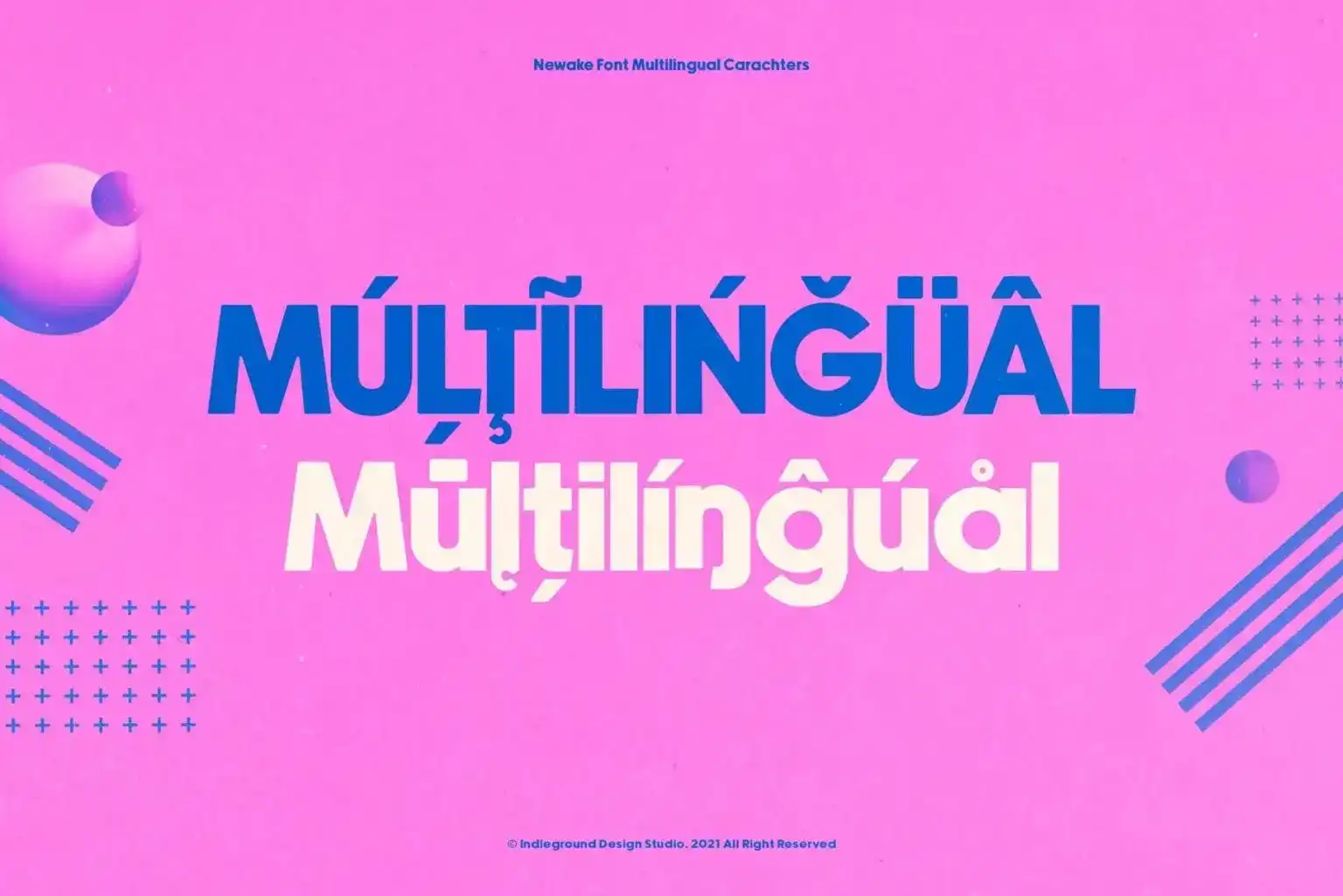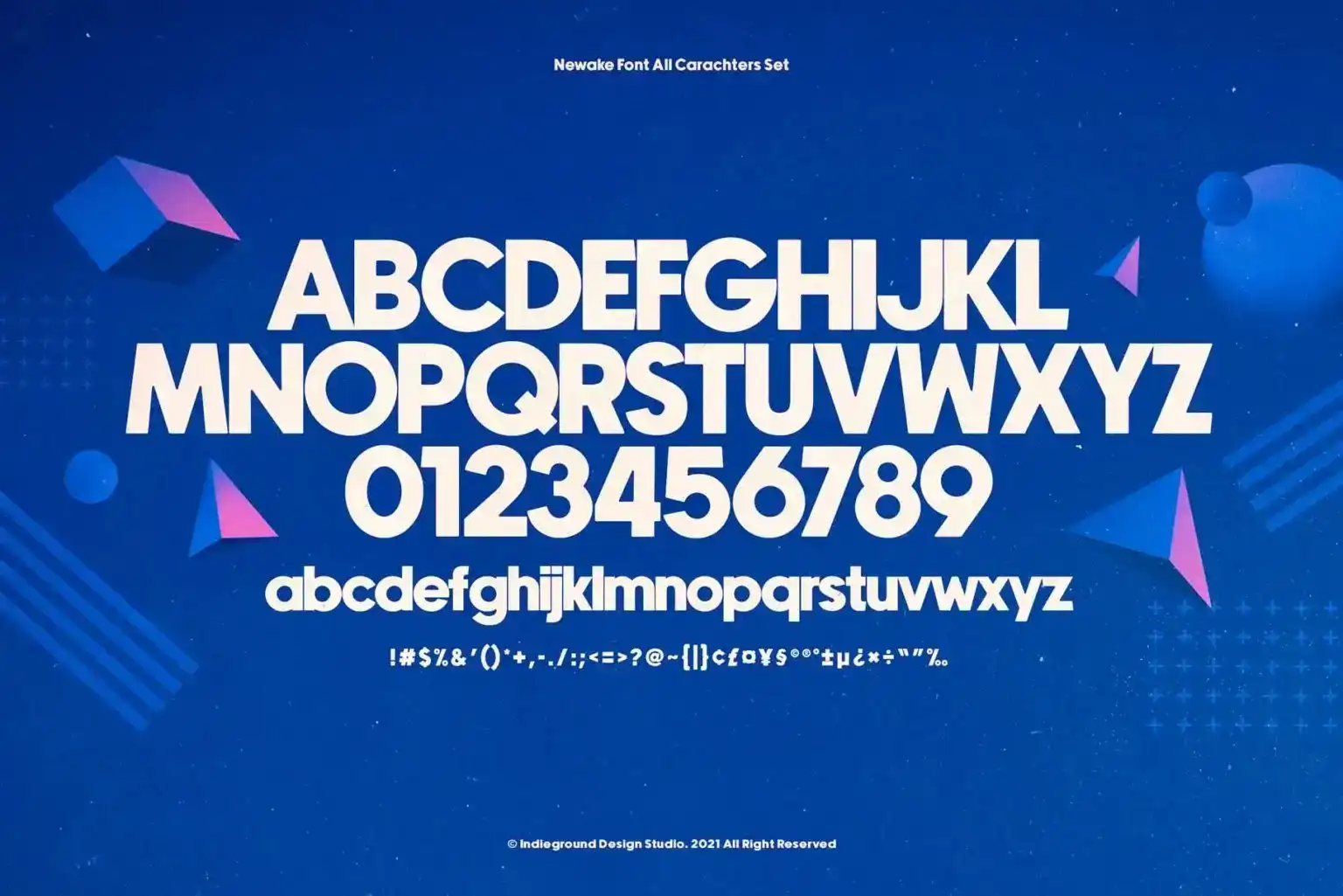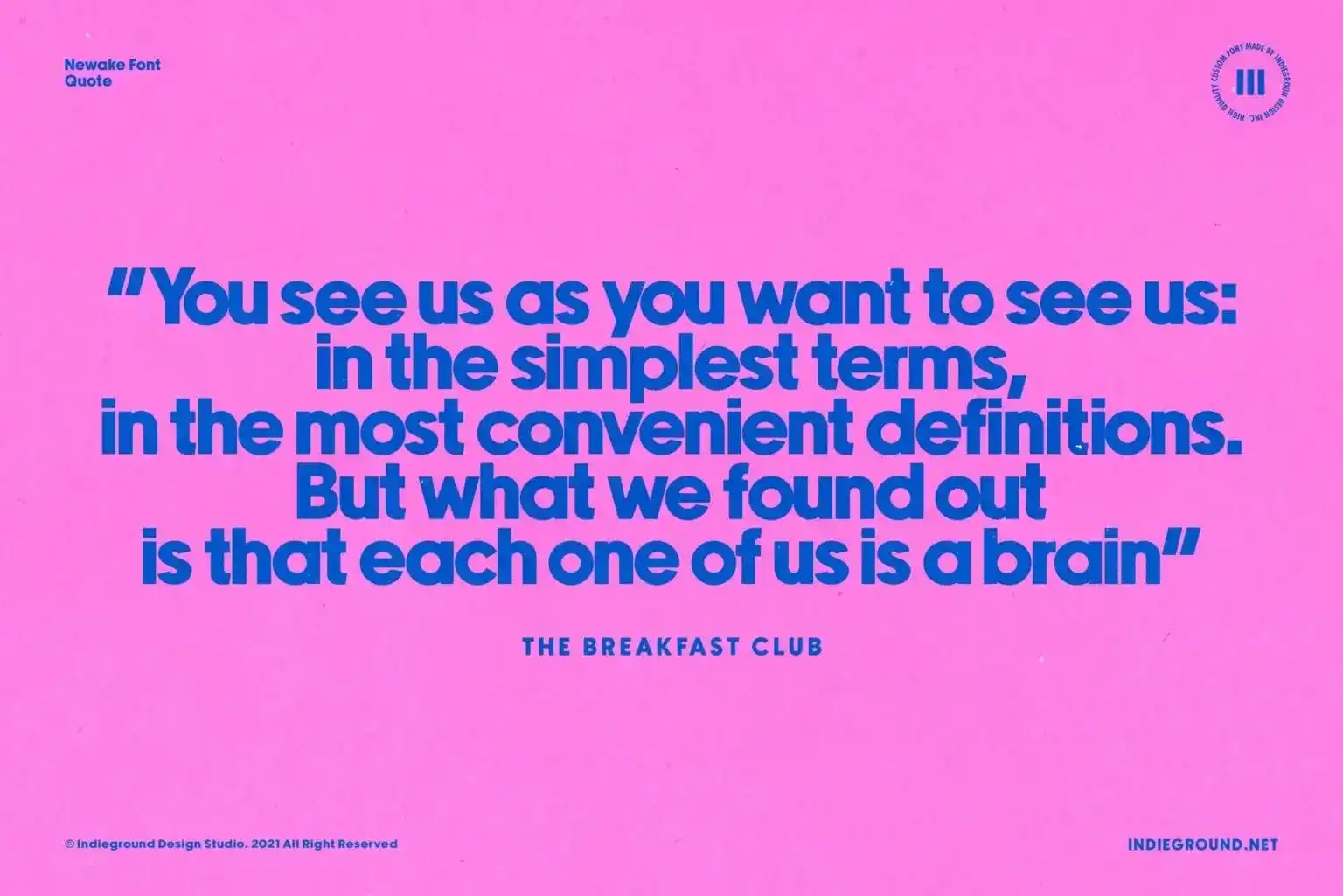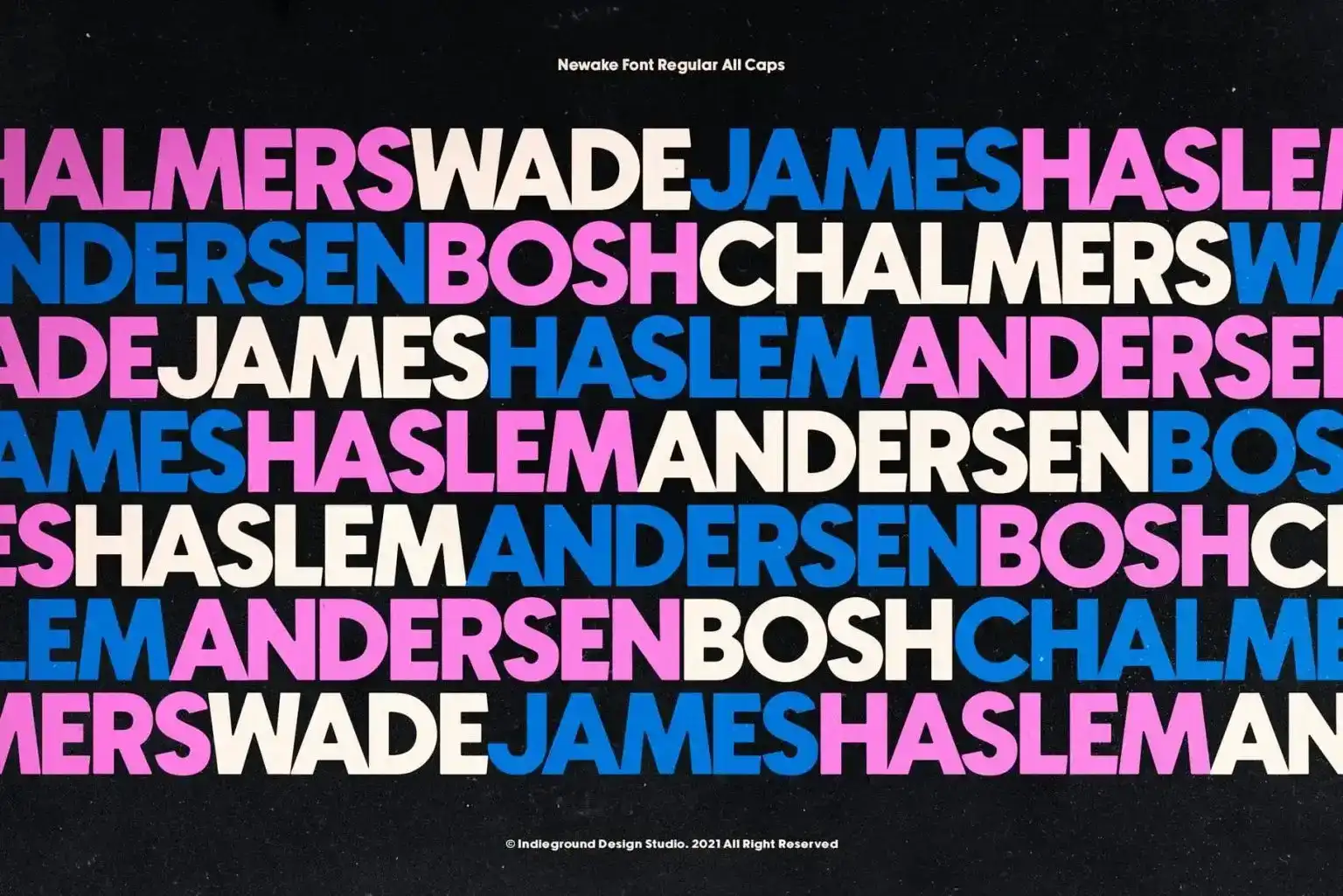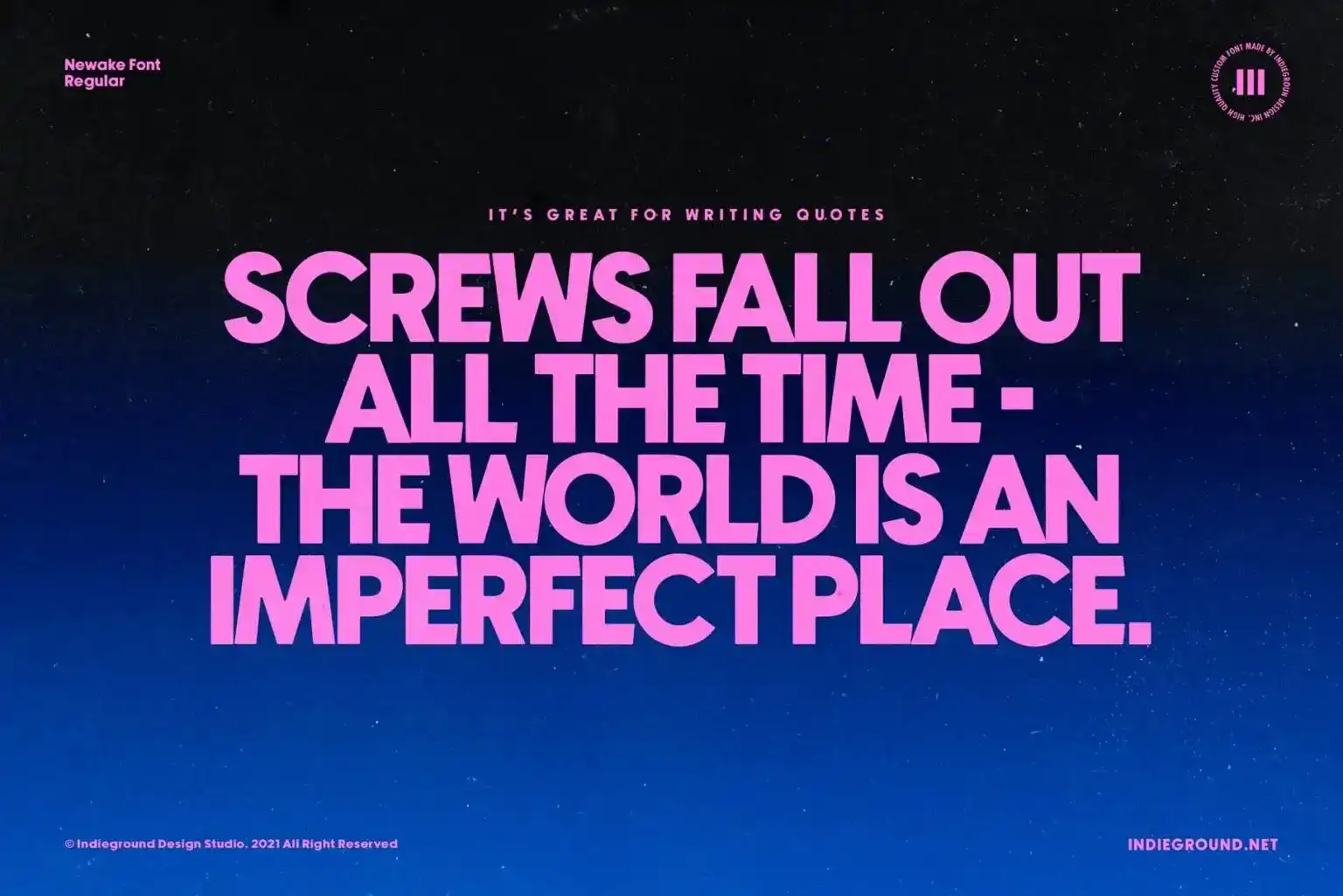
Welcome to the world of creativity with the Newake Font! 🎉 This digital download offers instant access to a stunning sans-serif font family that has captured the hearts of countless creators. Perfect for those who love minimalistic design, this font adds a touch of elegance to any project!
The Newake Font is crafted by the talented Indieground Team and is ideal for a variety of applications including titles, logos, editorial design, packaging, and web design. Its slightly rounded corners give each letter a unique and sophisticated flair, making your text and quotes stand out beautifully. Whether you’re working on a graphic design project or enhancing your typography skills, this font is your go-to choice! 🌟
- Versatile Usage: Perfect for both digital and print projects, ensuring your designs look professional.
- Elegant Design: The rounded corners and clean lines give your work a modern and stylish appearance.
- Comprehensive Character Set: Includes 300 characters, covering special characters, numbers, and more, making it suitable for any creative need.
- A display font with a total of 300 elements, including regular and special characters, numbers, and batches.